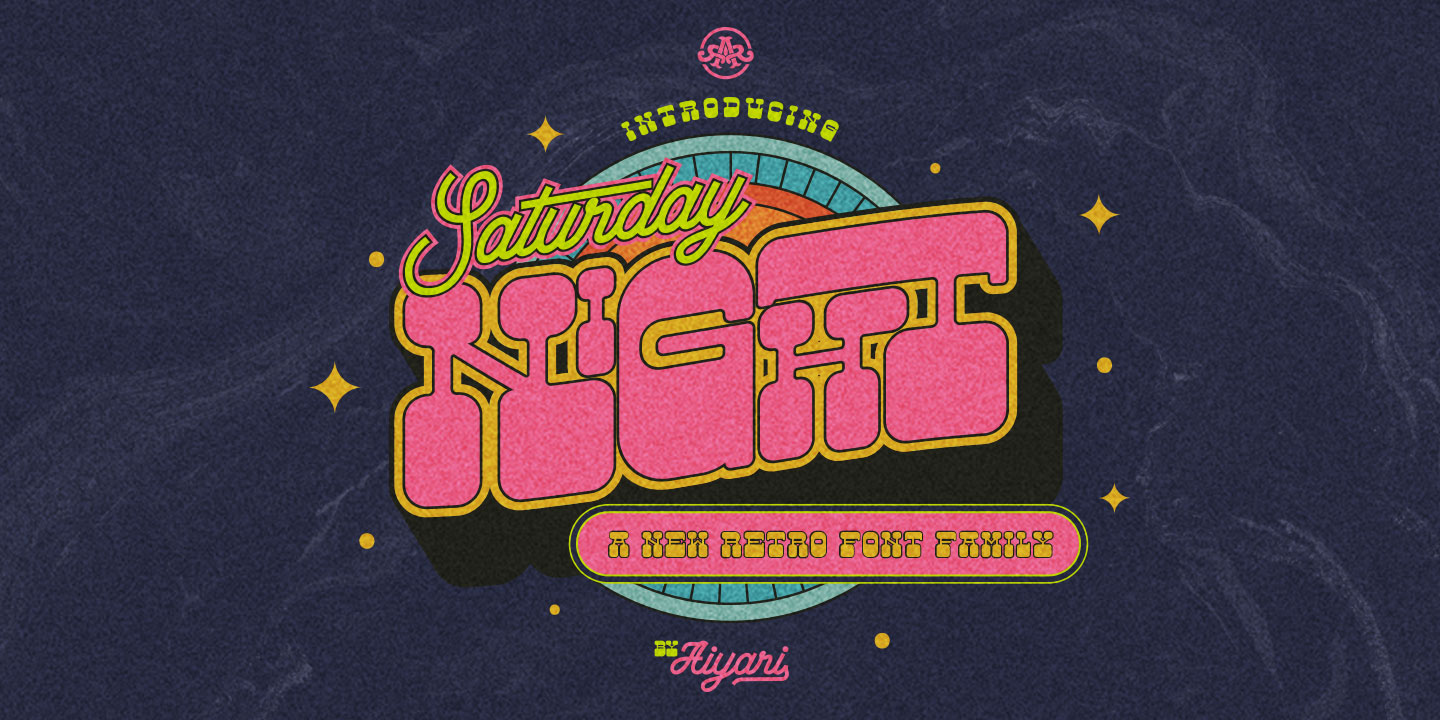
Saturday Night Font is perfect for nightclub promotions, party invitations, music event posters, cocktail bar menus, entertainment venue branding, dance studio materials, DJ promotional graphics, weekend special advertisements, nightlife social media posts, and vibrant festival signage.
Saturday Night Font is exciting because it captures the electric energy and pulsating rhythm of weekend celebrations through its dynamic letterforms that embody the spirit of freedom, fun, and unforgettable nights filled with music, dancing, and pure entertainment.
Saturday Night Font family includes Regular, Bold, Light, Neon, Italic, Condensed, Glow, and Disco variations, providing designers with a complete arsenal of typographic tools to create electrifying visual experiences that pulse with nightlife energy.
Saturday Night Font embodies the essence of celebration and nighttime excitement, making it the ultimate choice for brands and venues that want to connect with party-goers and entertainment enthusiasts. This vibrant typeface features energetic curves and rhythmic letterforms that naturally capture attention while maintaining excellent readability under various lighting conditions. The carefully balanced character spacing in Saturday Night Font Free Download ensures optimal legibility whether displayed on neon signs, digital screens, or promotional materials.
Hospitality industry professionals consistently select Saturday Night Font for nightclub branding, bar promotions, and event marketing because of its ability to instantly communicate fun, energy, and social connection. The font's dynamic personality makes it particularly effective for targeting young adults and creating memorable brand experiences that encourage social sharing and word-of-mouth marketing.
Saturday Night Font dominates digital platforms where engagement and virality are essential. Social media managers and content creators leverage this font to make posts stand out in crowded feeds, while app developers use it for entertainment applications and party planning platforms. The font's celebratory appearance naturally encourages user interaction and social participation.
The music and entertainment industry has embraced Saturday Night Font for album artwork, concert merchandise, and promotional campaigns. Its rhythmic visual impact helps artists and promoters create marketing materials that resonate with audiences seeking escape, connection, and memorable experiences through music and nightlife culture.